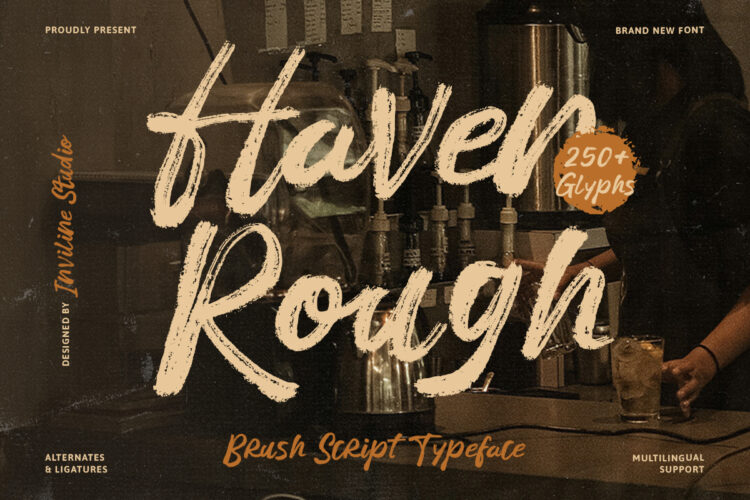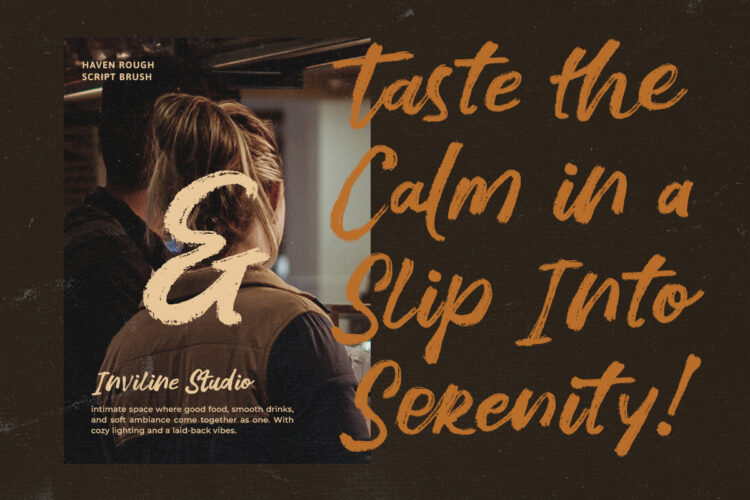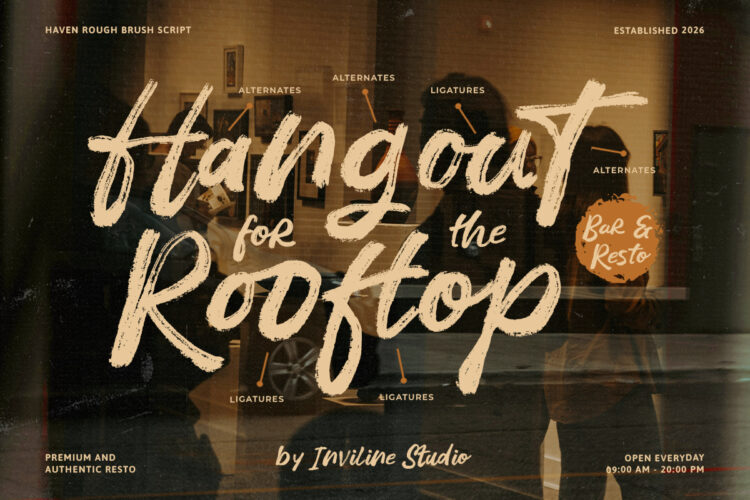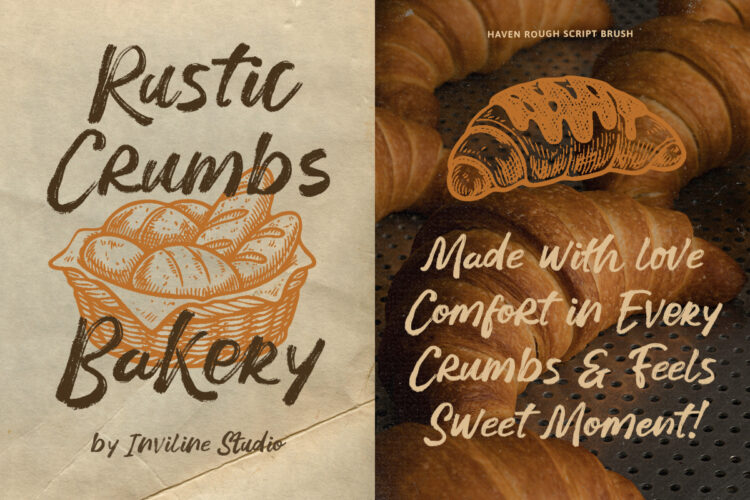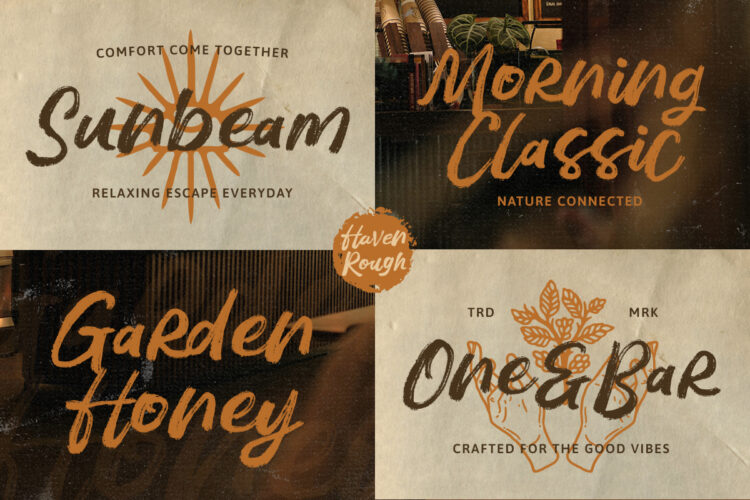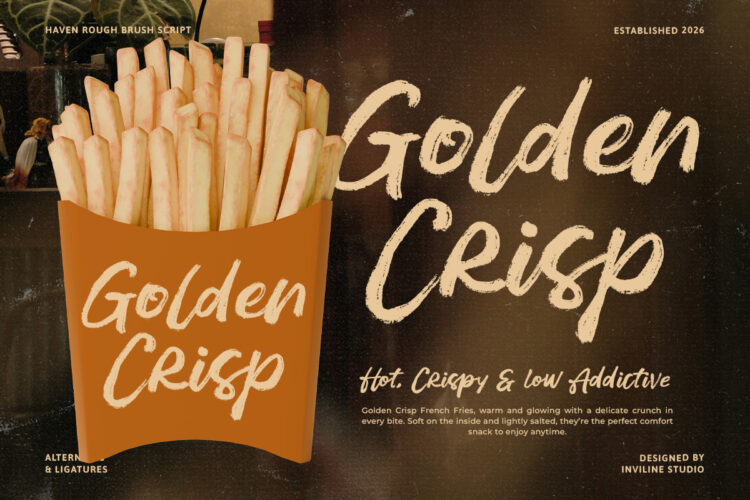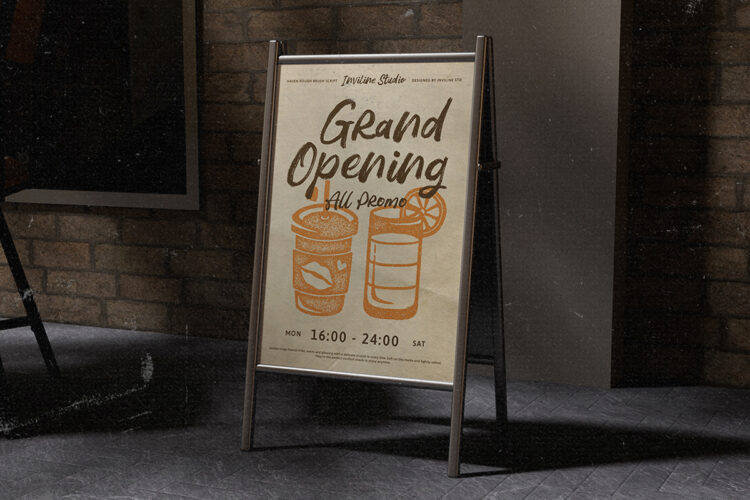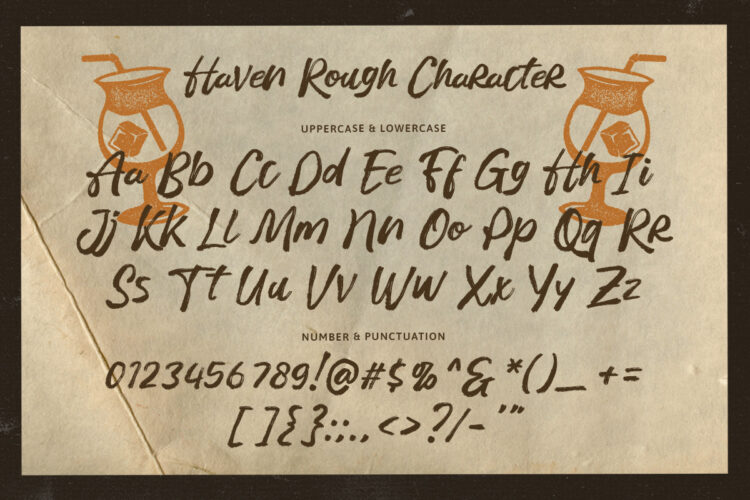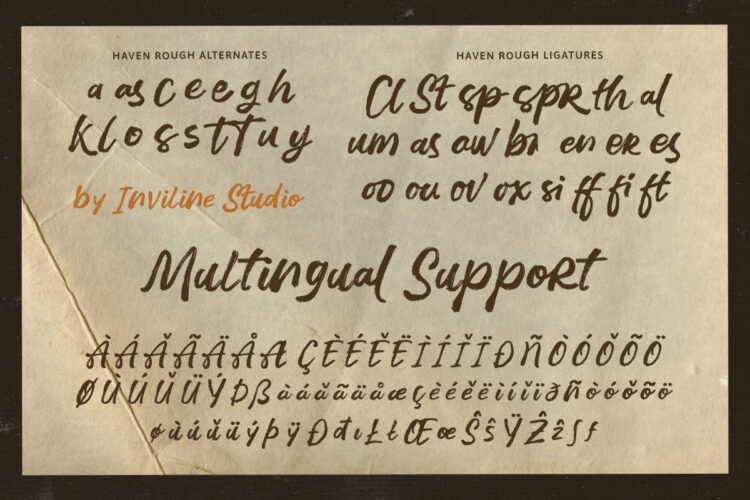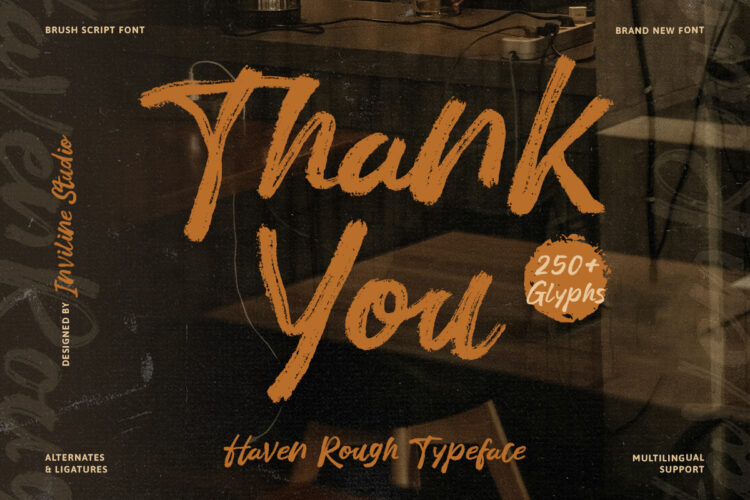
Haven Rough is where rugged texture meets confident brushwork.
This isn’t a clean, polite script, it’s a brush typeface with grit, soul, and unmistakable handmade energy. Every stroke carries the imperfection of a real brush dragged across paper, giving your designs the kind of authenticity that algorithms can’t fake.
Built by Inviline for designers who work in the worlds of food, lifestyle, and lifestyle branding, Haven Rough thrives wherever personality matters more than polish. Cafe signage. Bakery packaging. Bar menus. Poster art. T-shirts. Logos that need to feel real.
- 250+ glyphs with full multilingual support
- Stylistic alternates for natural variation
- Beautiful ligatures (Cl, St, sp, th, ff, fi, ft, & more)
Perfect For:
- Cafe, bar, bakery & restaurant branding
- Rustic packaging & product labels
- Posters, signage & menu boards
- Logo & wordmark design
- Apparel & merchandise prints
- Social media graphics
- Wedding stationery with character
- Quote prints & wall art